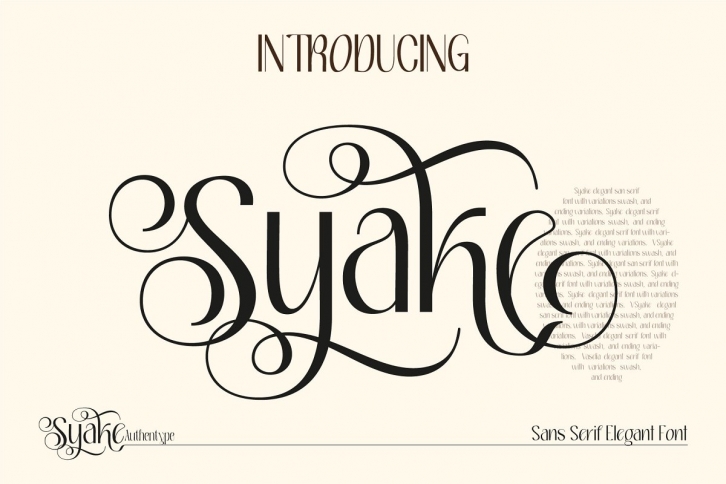
Syake Sans Serif Elegant FONT Download
Syake Sans Serif Elegant Font Download
Elegant syake sans serif font with a full set of upper and lower case letters, multilingual symbols, numbers, punctuation, and ligatures. Syake sans serif font is an elegant style for poster design, magazine, beauty branding with many variations of glyphs suitable for your beautiful and elegant design concept.
Syake Sans Serif Elegant Font (OTF/TTF/WOF) | Standard glyphs uppercase and lowercase letters | Numerals, a large range of punctuation and ligatures | Lowercase letters include ending swashes | Works on PC & Mac |